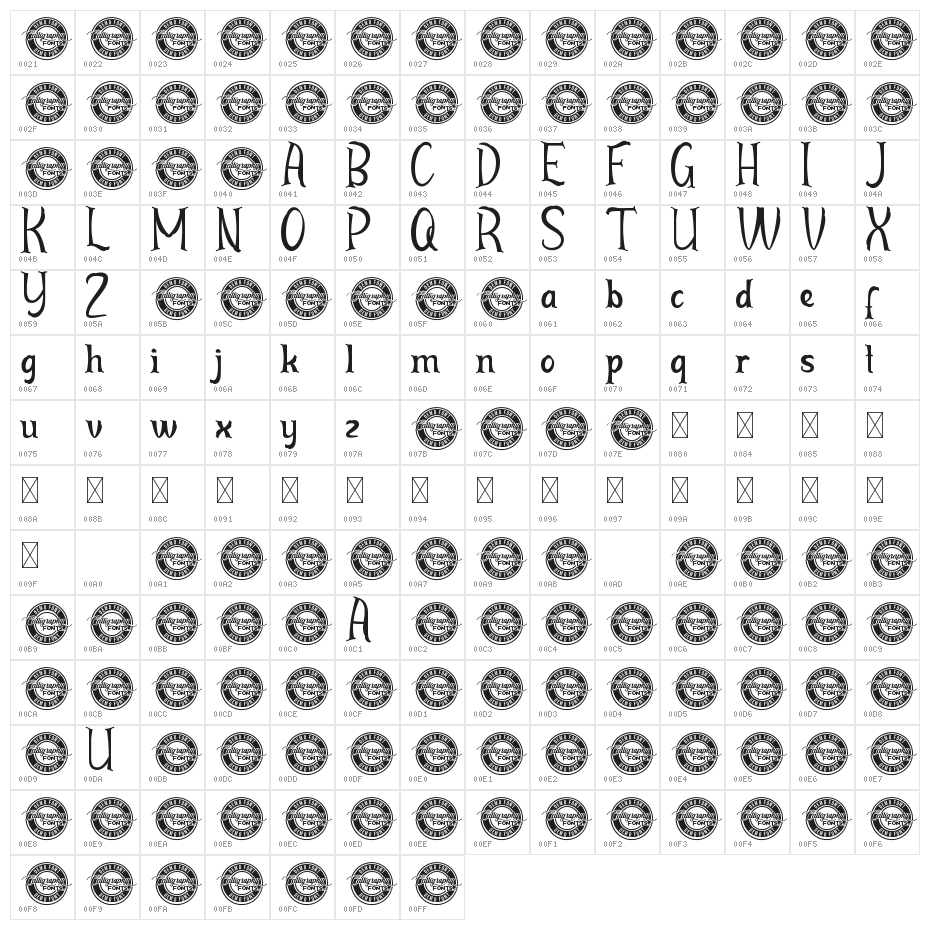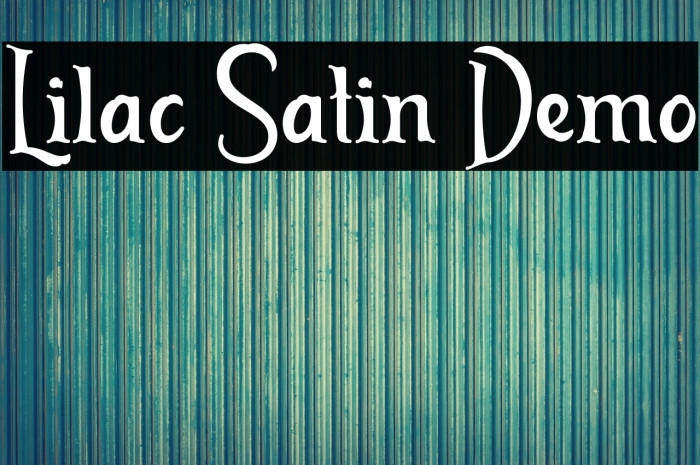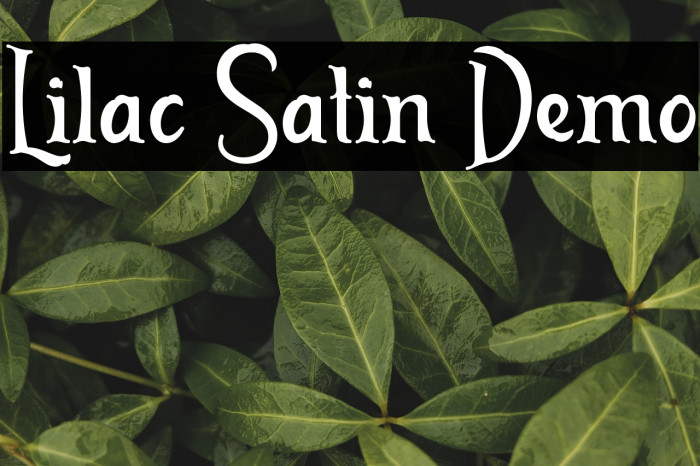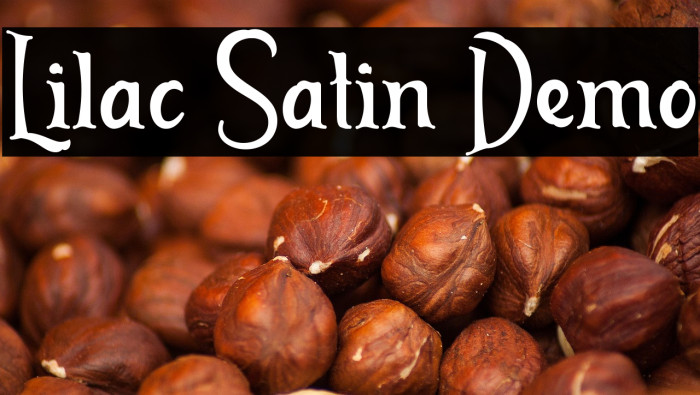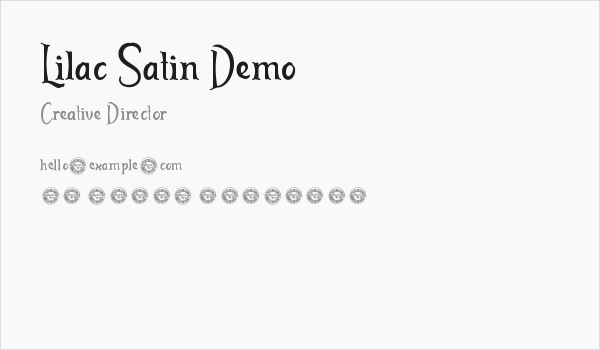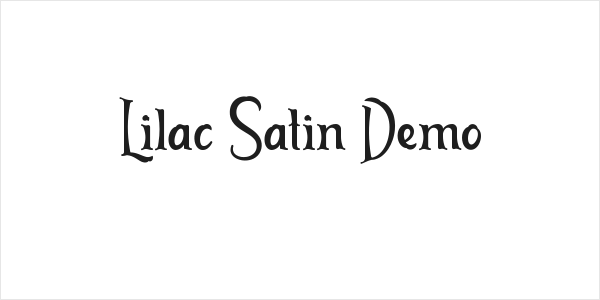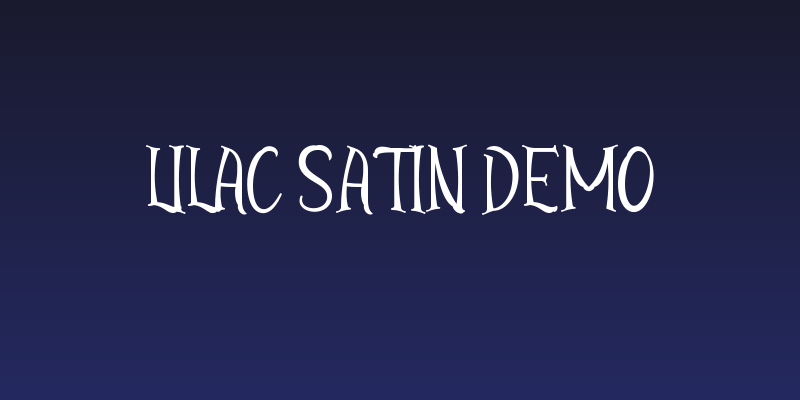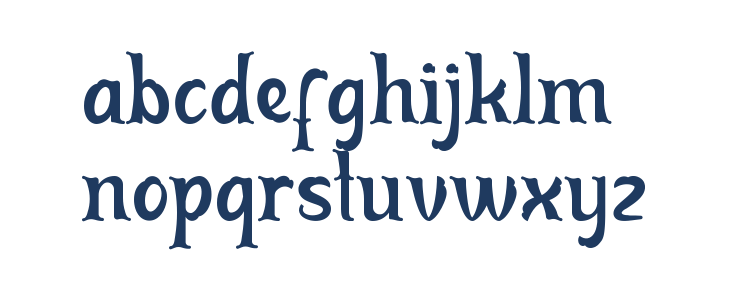
Lilac Satin Demo Font
Lilac Satin Demo Description
This font features a whimsical and playful design with a handwritten style that exudes a sense of creativity and artistic flair. The characters are slightly uneven, adding to the charm and uniqueness of the font. The uppercase letters are tall and slender, while the lowercase letters have a more rounded and flowing appearance. The strokes vary in thickness, providing a dynamic and lively feel. This font is perfect for projects that require a personal touch or a casual, friendly vibe. It captures attention with its distinctive style, making it suitable for creative designs.
Use CaseLogos, Headlines, Creative projects
Proposed ProjectsIdeal for greeting cards, invitations, children's books, and creative branding.